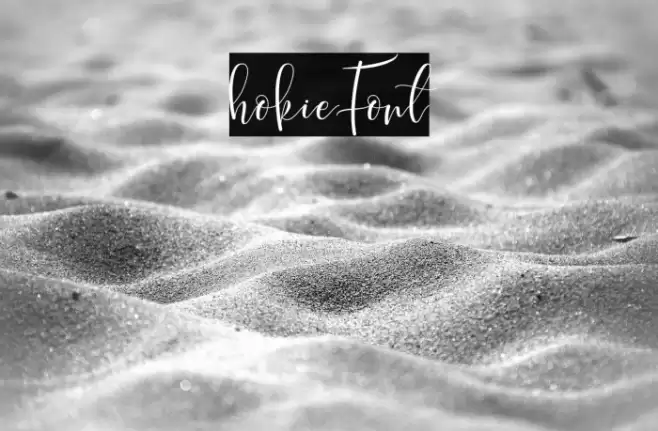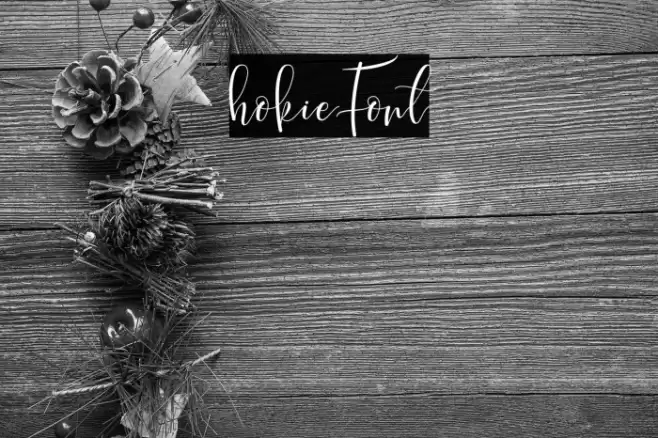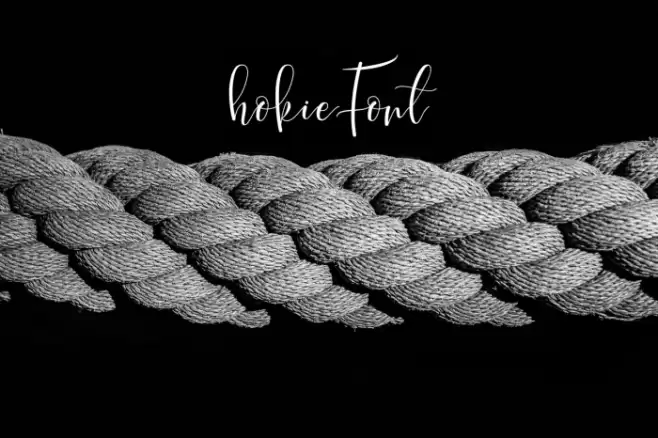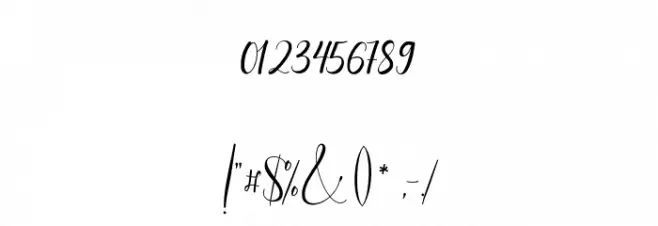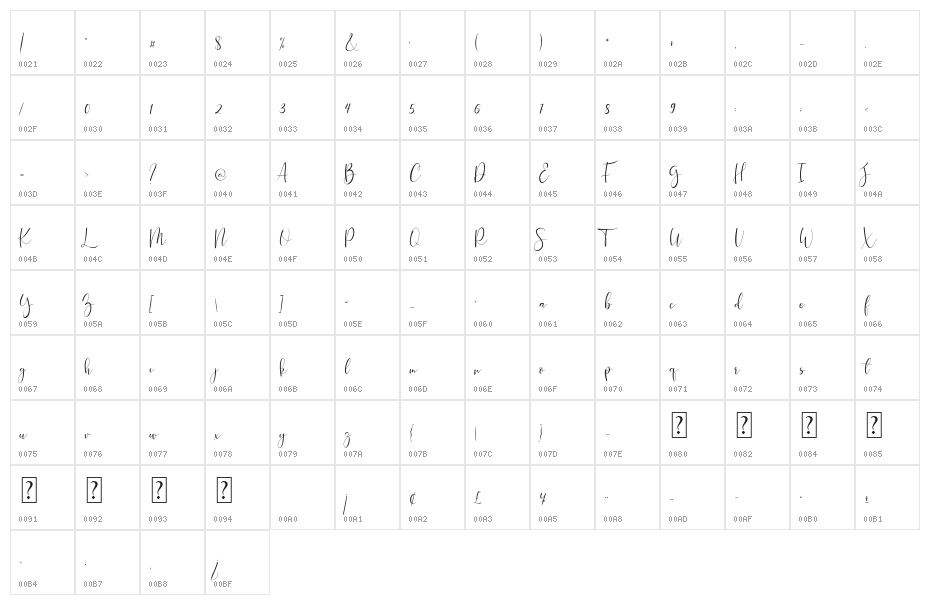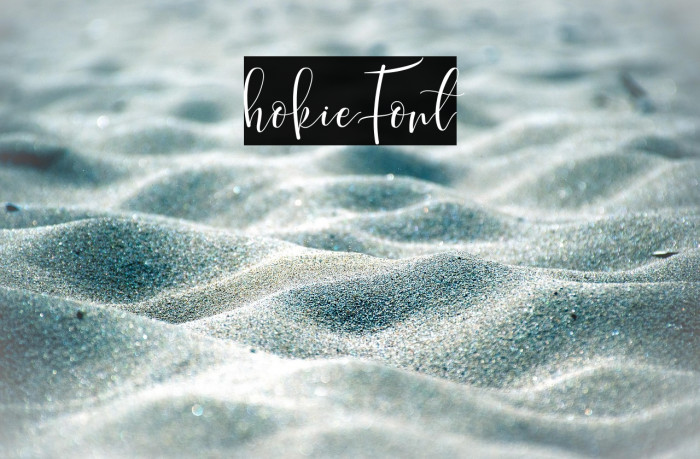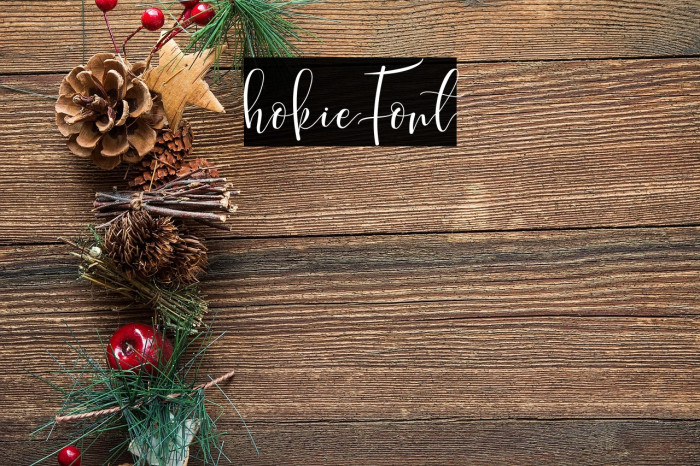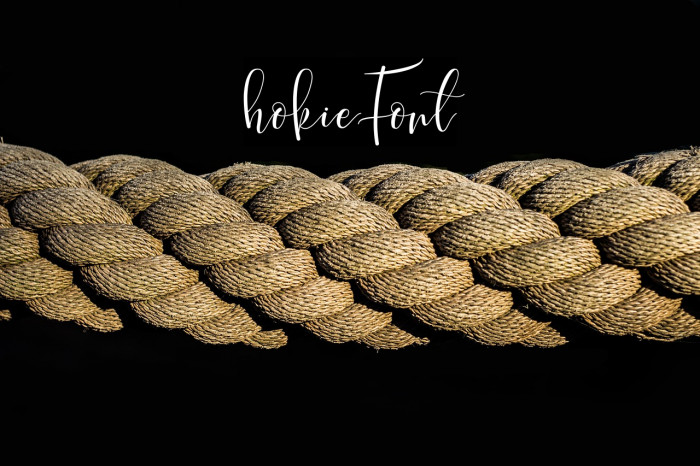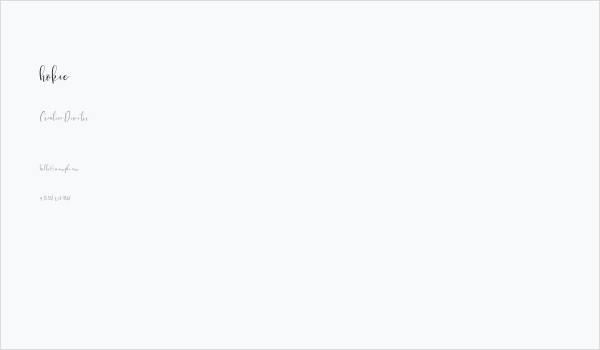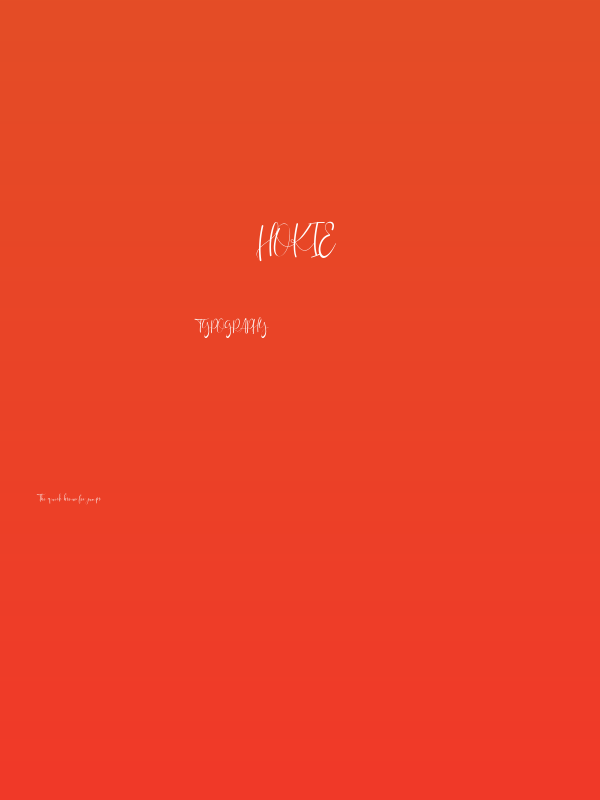
hokie Font
hokie Description
This font is a beautifully crafted script typeface that exudes elegance and sophistication. The letters are intricately designed with flowing, cursive strokes that give it a handwritten feel. The uppercase letters are particularly ornate, with elaborate loops and swirls that add a touch of drama. The lowercase letters maintain a consistent style, complementing the uppercase with their graceful curves. The numerals are clear and stylish, fitting seamlessly into the overall aesthetic. Special characters are also thoughtfully designed, maintaining the font's cohesive look. This font is perfect for projects that require a personal, artistic touch.
An elegant, cursive script font with ornate, flowing strokes from Regular fonts.
- Proposed Projects: Ideal for wedding invitations, greeting cards, branding, and elegant logo designs.
- Use Case: Logos, Invitations, Decorative text